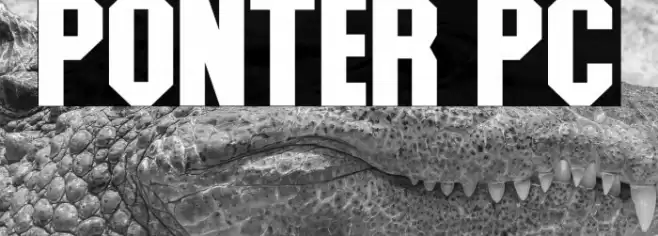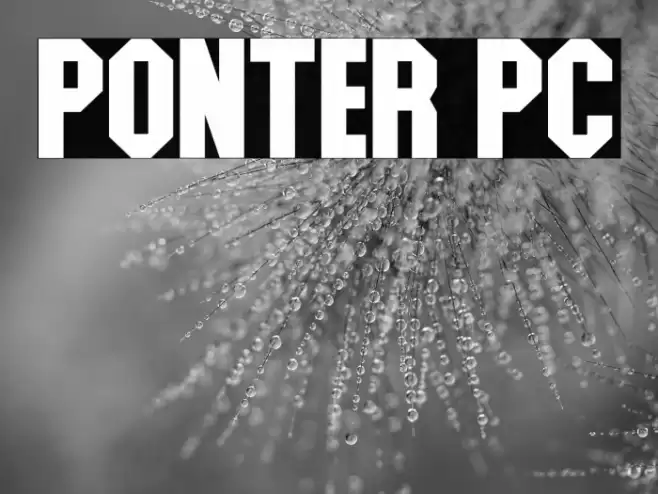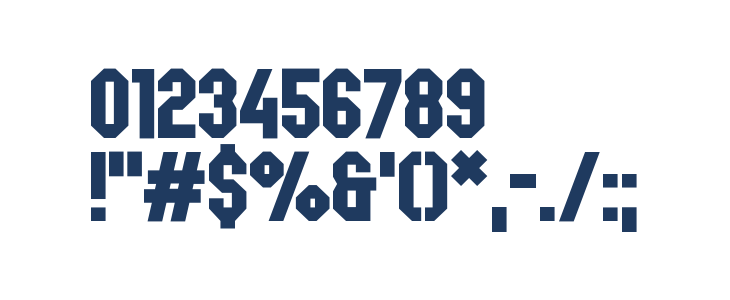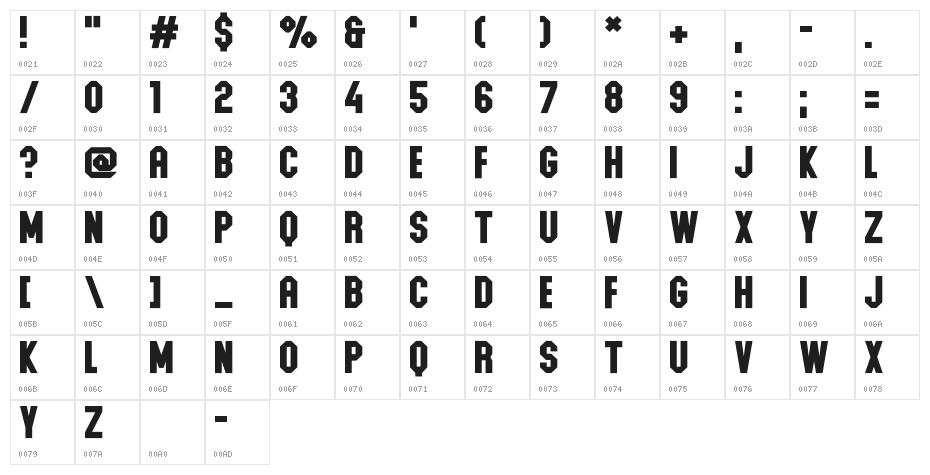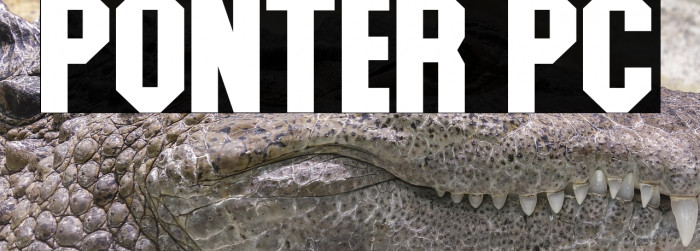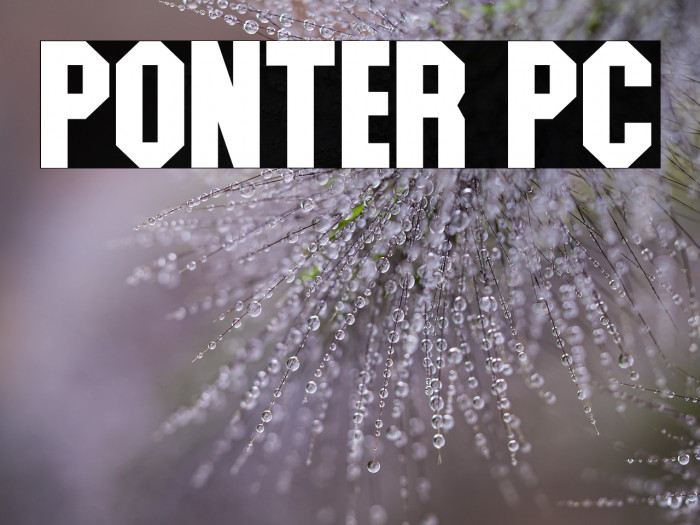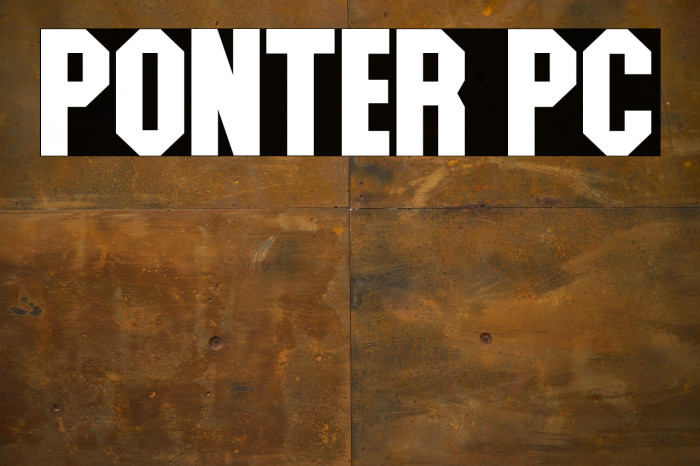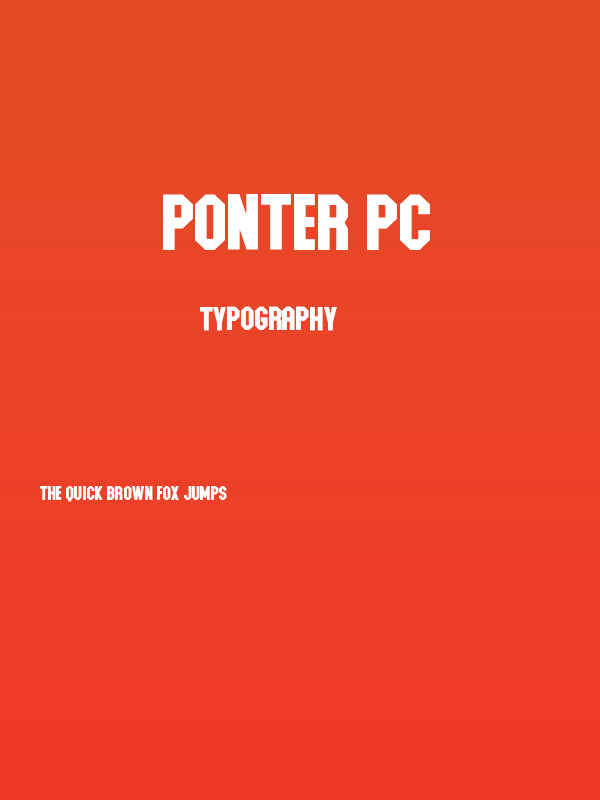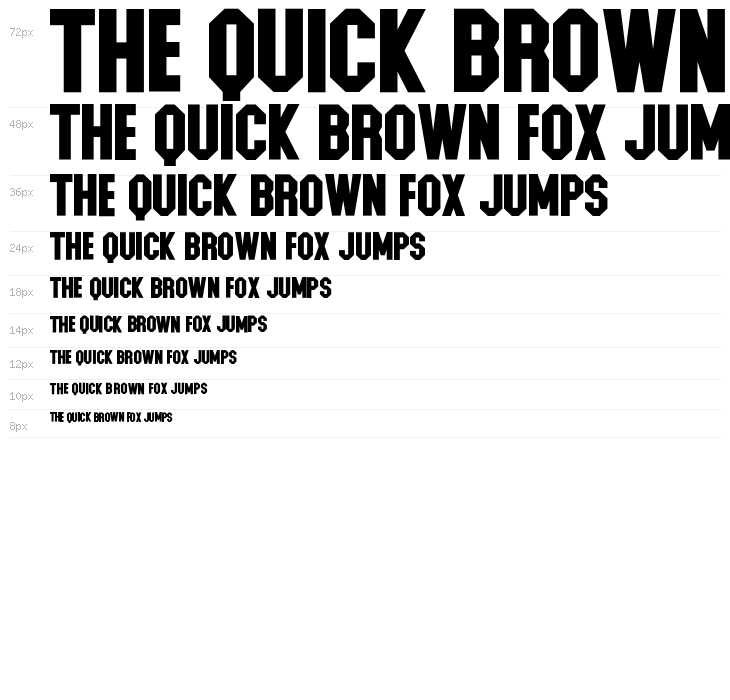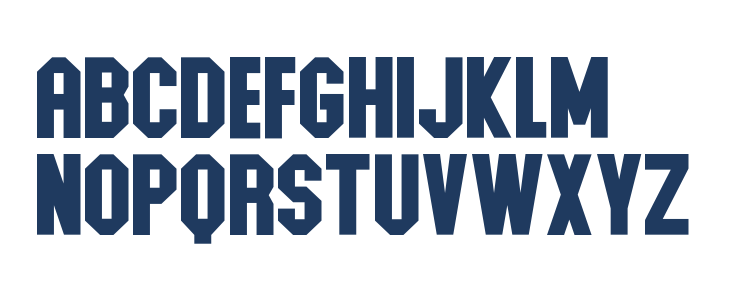
Ponter PC Font
Ponter PC Description
This font features bold, geometric letterforms with a strong, impactful presence. The characters are constructed with sharp angles and straight lines, creating a modern and assertive look. The uppercase letters are particularly striking, with a uniform height and width that contribute to a cohesive appearance. The numerals and special characters maintain the same bold style, ensuring consistency across all text elements. This font's design is ideal for making a statement, with its high contrast and solid structure.
A bold, geometric font with sharp angles and a modern, impactful style from Regular fonts.
- Proposed Projects: Ideal for branding, posters, headlines, and any project requiring a strong visual impact.